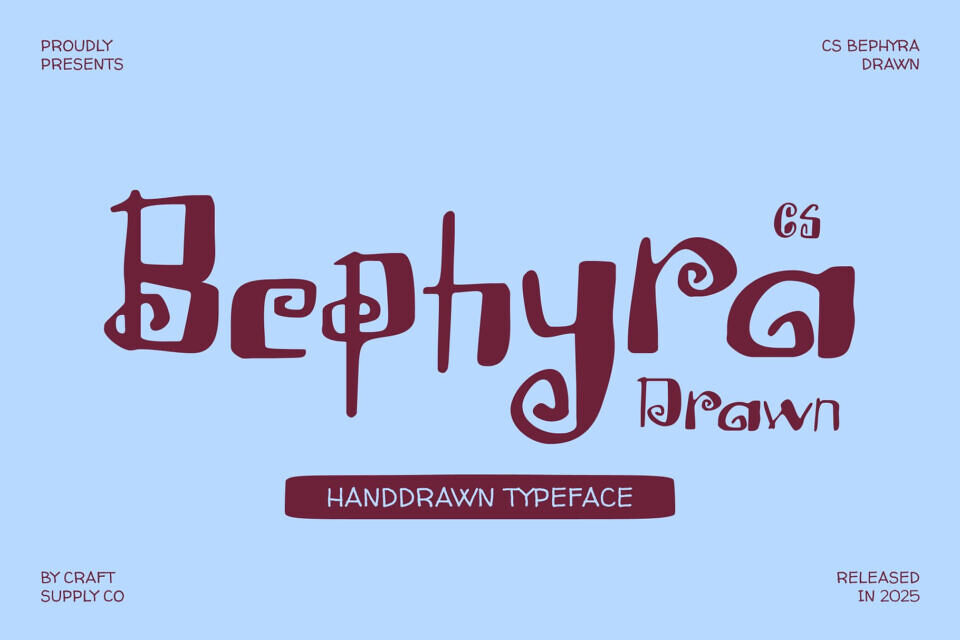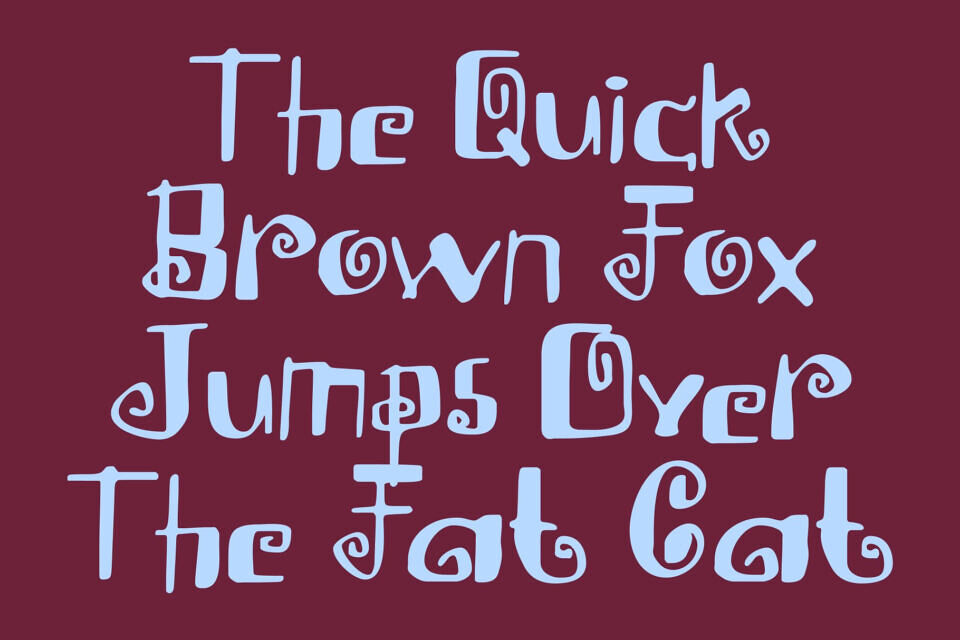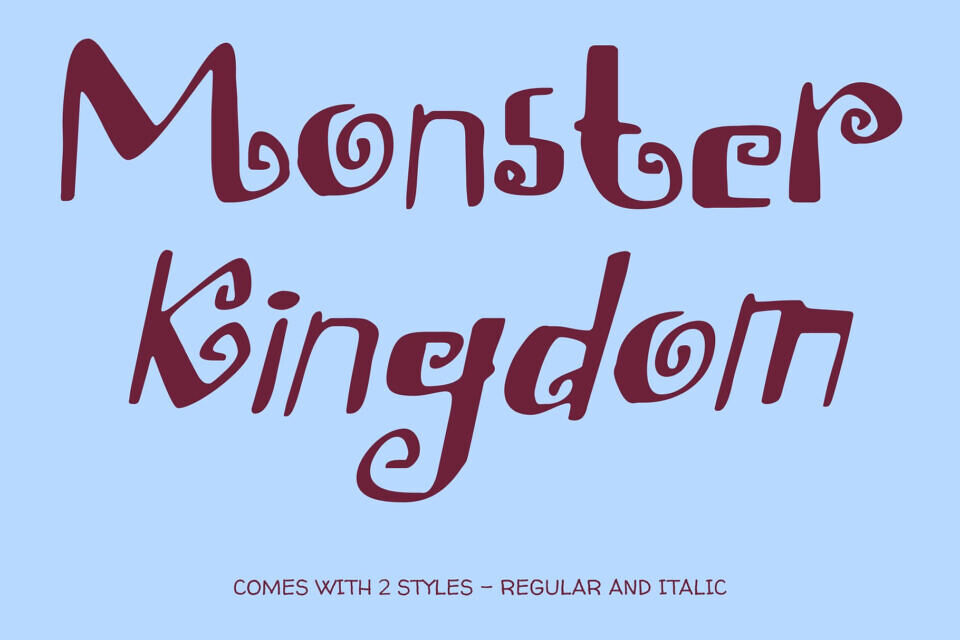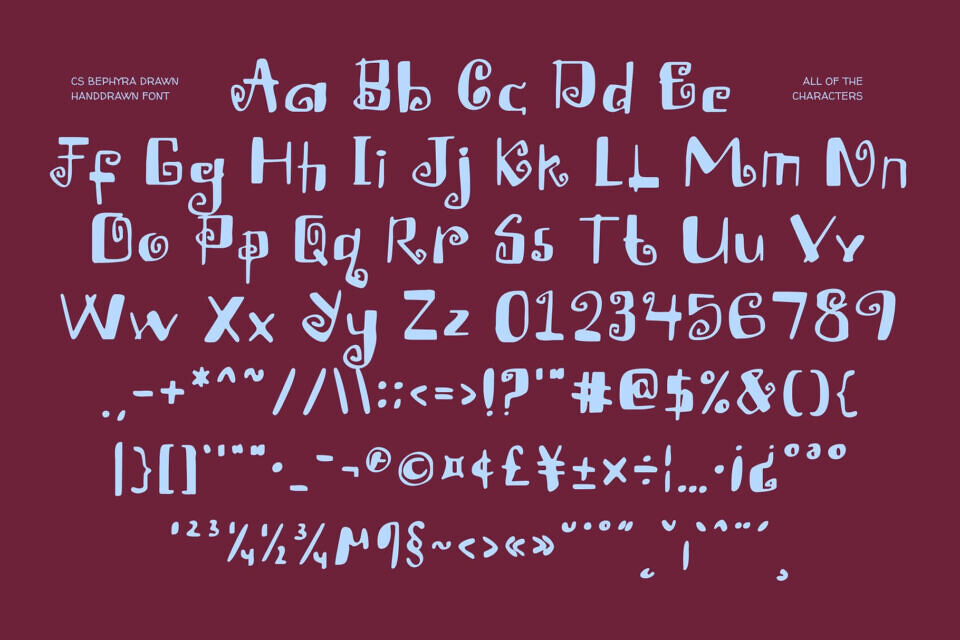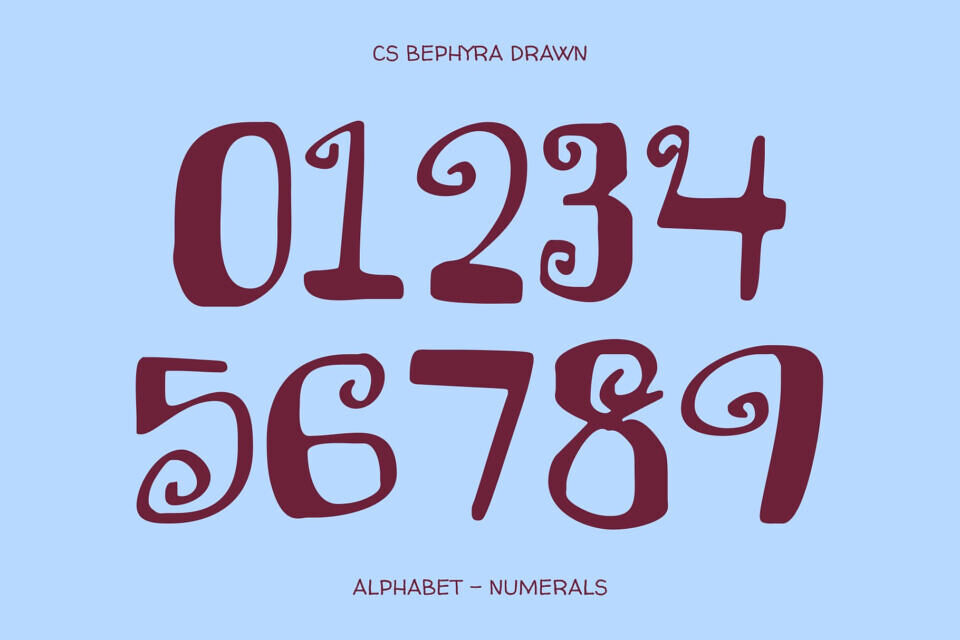
Meet CS Bephyra Drawn, a whimsical sans serif font that sparks imagination. Its playful, hand-drawn texture and soft curves create a warm, inviting feel, perfect for fairy-tale like atmospheres.
With gentle, rounded shapes and subtle decorative details, this font delivers a friendly tone with a touch of innocence, making it ideal for storytelling designs, children’s books, and fantasy-themed projects that require a sense of wonder and magic.